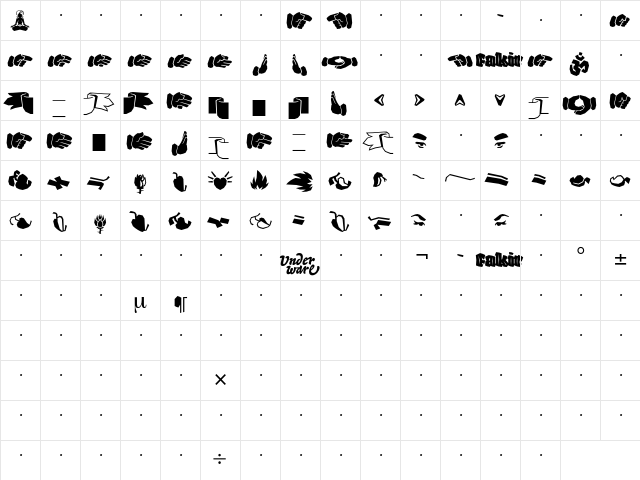
Fakir Ornaments Regular
Design Context for Fakir Ornaments Typeface
Fakir Ornaments is built around its visual character rather than neutral utility — its distinctive forms are designed to make an impression at display sizes.
Font Pairing: Pair with a clean neutral sans-serif for body copy to let Fakir Ornaments's character lead without overwhelming the composition.
Pro Tip: Use Fakir Ornaments exclusively at display sizes — it was designed to be seen, not read at length. Let a neutral companion handle body copy.